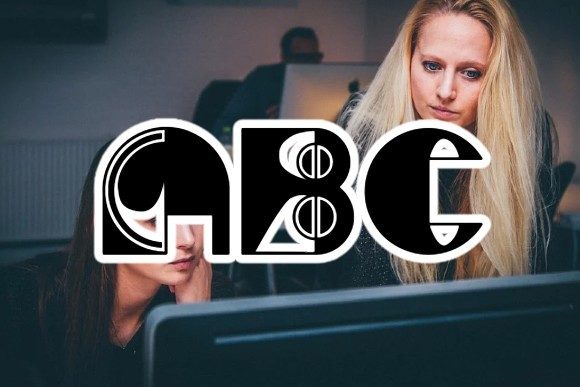
Girls from the Forest Font: Elevate Your Designs with a Modern Twist
Are you tired of using the same old fonts in your designs? Look no further than the Girls from the Forest Font, a modern and sharp-looking display font that’s sure to inspire your work. With its unique and elegant style, this font is perfect for designers and crafters looking to add a touch of sophistication to their projects.
What is Girls from the Forest Font?
Girls from the Forest Font is a display font designed to make a statement. Its modern and sleek design makes it perfect for use in a variety of applications, from branding and advertising to packaging and digital media. The font’s sharp lines and elegant curves give it a sophisticated look that’s sure to grab attention.
Key Features of Girls from the Forest Font
- Modern and Sharp-Looking Design: The Girls from the Forest Font features a modern and sharp-looking design that’s perfect for making a statement in your designs.
- Highly Versatile: This font is highly versatile and can be used in a variety of applications, from digital media to print materials.
- Elegant and Sophisticated: The font’s elegant and sophisticated design makes it perfect for use in high-end branding and advertising campaigns.
- Easy to Read: Despite its modern and sleek design, the Girls from the Forest Font is easy to read, making it perfect for use in body text as well as headlines.
Endless Possibilities with Girls from the Forest Font
With the Girls from the Forest Font, the possibilities are endless. Here are just a few ideas to get you started:
- Branding and Advertising: Use the Girls from the Forest Font to create eye-catching logos, ads, and marketing materials that will help your brand stand out.
- Digital Media: Use the font to create stunning digital media, including social media graphics, blog posts, and website headers.
- Packaging Design: Add a touch of elegance to your packaging designs with the Girls from the Forest Font.
- Crafting and Scrapbooking: Use the font to add a personal touch to your crafting and scrapbooking projects.
Why Choose Girls from the Forest Font?
There are many fonts on the market, but the Girls from the Forest Font stands out for several reasons:
- Unique Design: The font’s unique design makes it stand out from more traditional fonts.
- High-Quality: The font is high-quality and designed to look great in any application.
If you’re looking for a modern and sharp-looking display font that will elevate your designs, look no further than the Girls from the Forest Font. With its elegant and sophisticated design, this font is perfect for use in a variety of applications, from branding and advertising to packaging and digital media. Its highly versatile and easy to read, making it a great choice for designers and crafters of all skill levels. So why wait? Download the Girls from the Forest Font today and explore its endless possibilities!